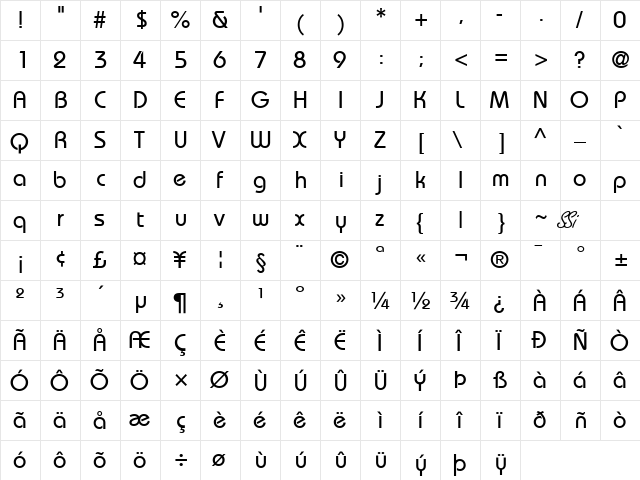
Dyname SSi Regular
Design Context for Dyname SSi Typeface
Dyname SSi is a composed and adaptable typeface that performs quietly and consistently across a wide range of design contexts.
Pro Tip: Use Dyname SSi in both headline and body roles to test its range before committing to a single application.